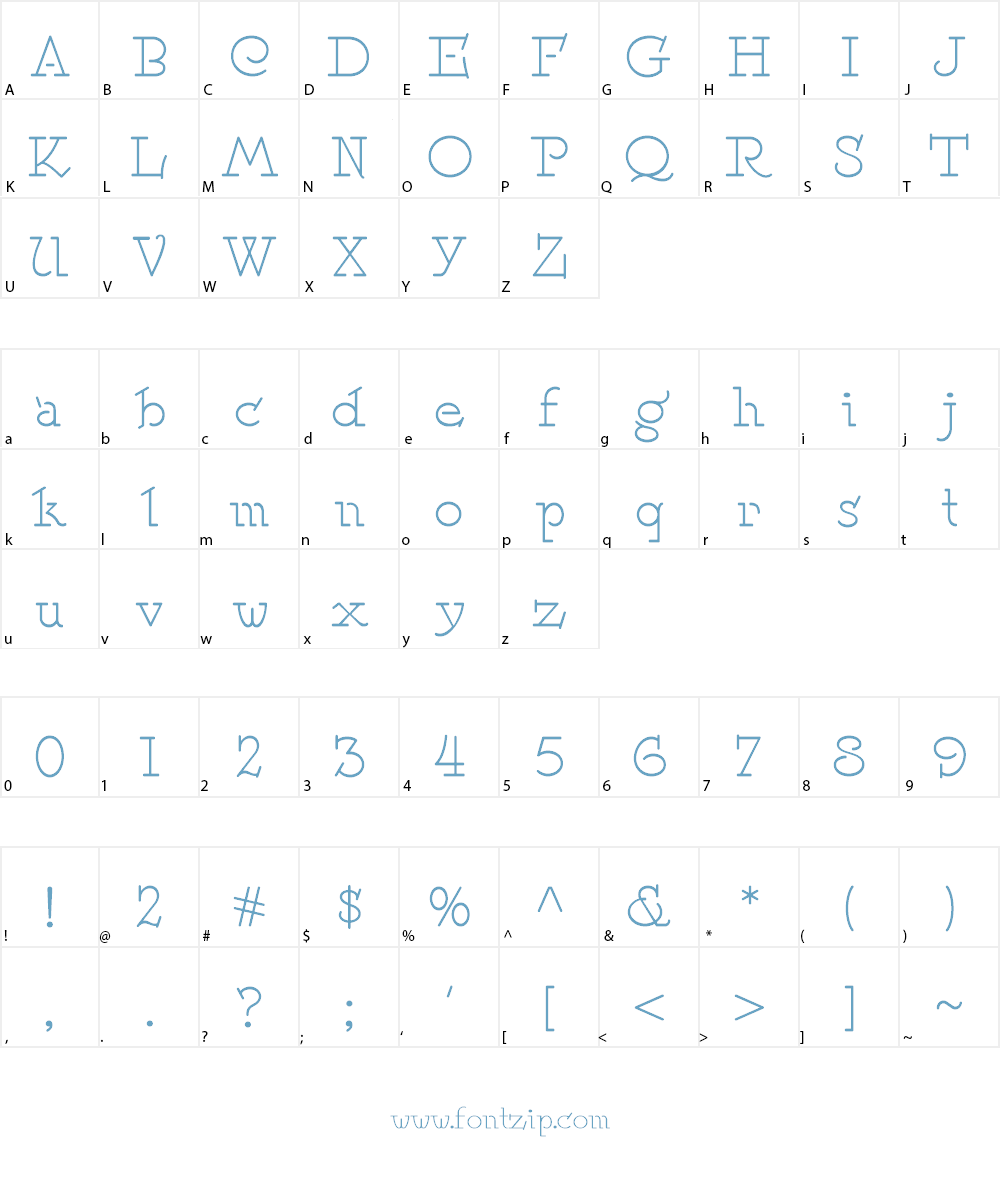
Yet another offering from the fertile imagination of Sam Welo, this font appearing in his perennial chapbook as the second in a series of Speedball pen fonts, hence the name.